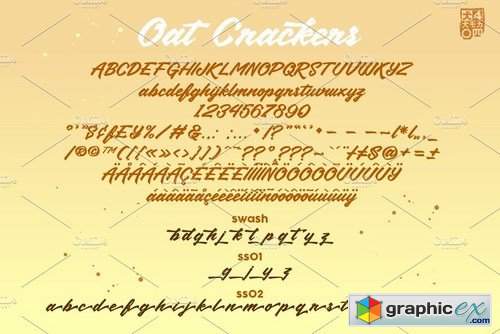
OatCrackers v.01
OatCrackers v.01. its Modern Script typeface, bold elegant clear brush handwriting, typeface with personal touch with some alternates and swash. unique font adjustable for your lettering inspiration with new experience, lets play with some alternates and swash this typeface